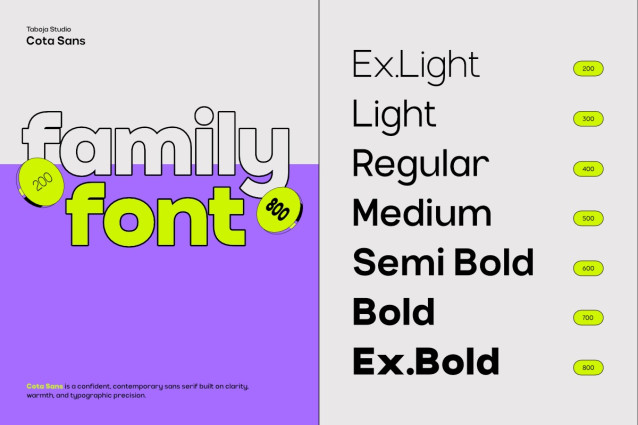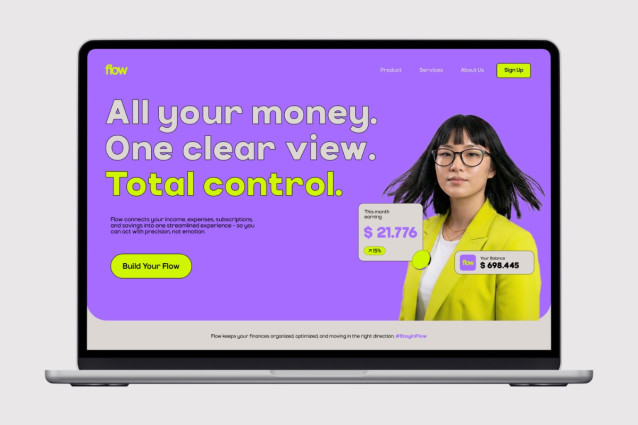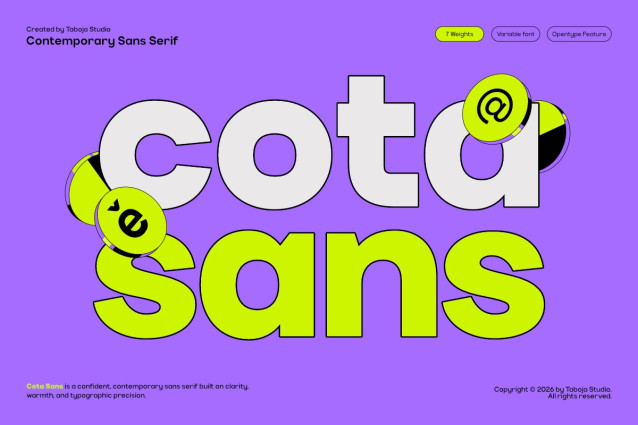
TBJ Cota Sans Font
TBJ Cota Sans Font – A contemporary grotesk sans serif built on clarity, warmth, and precision, it brings structure to chaos and calm to complexity. Every curve, every space, every weight has been carefully considered to deliver a typeface that feels both rational and human.
Inspired by the timeless discipline of classic grotesk typography, Cota Sans reinterprets those foundations for today’s design landscape. It carries a neutral tone but never feels cold. Subtle humanist touches soften its geometry, allowing it to adapt effortlessly across branding, editorial, and digital interfaces.
At its core, Cota Sans is a variable font system fluid, responsive, and built for modern workflows. With a continuous weight axis ranging from Extra Light to Extra Bold, it gives designers full control to shape hierarchy, expression, and rhythm without breaking consistency. Whether used for bold headlines or refined body text, it maintains balance and readability at every scale.